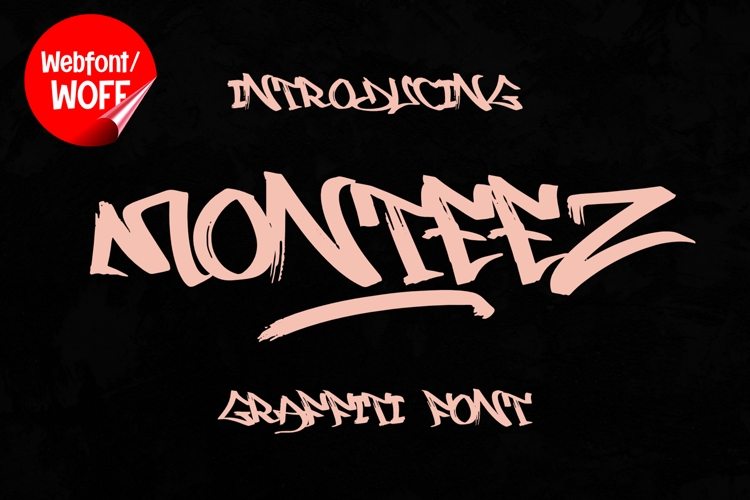
Monteez | Handwritten Brush Graffiti Webfont for Grunge
Monteez is a handwritten brush graffiti webfont that blends raw street energy with a grunge-inspired aesthetic. Designed with expressive brush strokes and textured details, this font captures the authentic feel of hand-painted graffiti while adapting smoothly to modern website design. It is an excellent choice for projects that require a bold, artistic, and slightly rough visual style.
Monteez features a complete set of uppercase characters crafted with dynamic brush strokes. Each letter carries natural variations that mimic real hand movements, creating an organic and expressive look. These uppercase forms are perfect for headlines, banners, hero sections, and featured text where strong visual impact is essential. The rough brush texture adds depth and character, making content feel more alive and engaging.
In addition to letters, Monteez includes numbers and punctuation, allowing flexible use across various parts of a website. It works well for promotional text, event information, call-to-action elements, and navigation highlights. Each character is designed to maintain the same grunge brush style, ensuring consistency throughout the layout.
With multilingual support, Monteez includes a wide range of accented characters, making it suitable for international projects. This allows content to be displayed clearly across different languages while preserving the unique brush graffiti appearance. It is a strong option for creative brands, global platforms, and digital campaigns.
The handwritten brush graffiti style of Monteez makes it especially effective for urban-themed websites, streetwear brands, music platforms, event promotions, and creative portfolios. Its rough and textured look adds an edgy feel that stands out in modern web design. The grunge influence gives the font a rebellious tone while still maintaining structure and readability.
Despite its expressive and textured design, Monteez is built with readability in mind. The spacing and proportions are carefully balanced to ensure clarity, especially in display sizes. This makes it suitable for bold headings and short text elements where both style and legibility are important.
Monteez is a webfont that combines handwritten brush aesthetics with grunge character and digital usability. Its strong strokes, textured details, and expressive form create a distinctive visual identity that enhances modern website design. For projects that need a bold, artistic, and urban-inspired typographic style, Monteez provides a powerful and engaging solution.